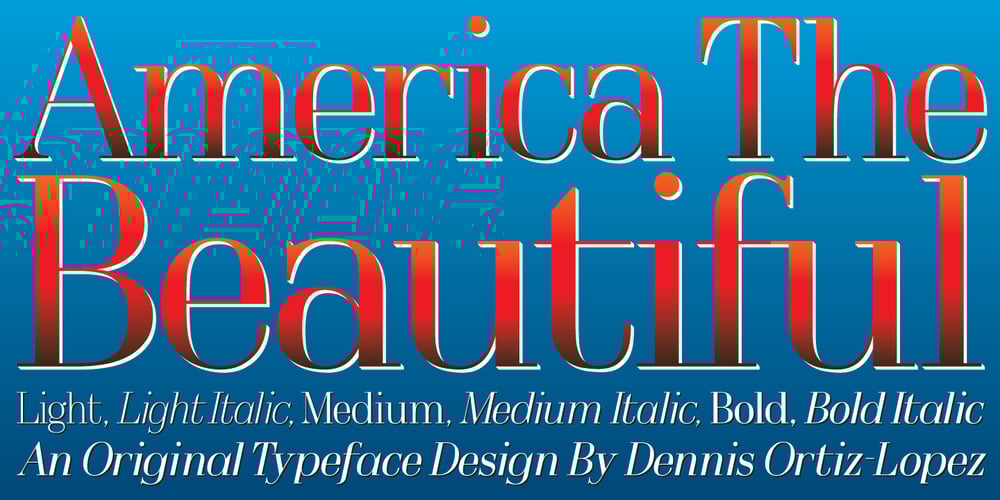
OL America The Beautiful
OL America The Beautiful font
OL America The Beautiful Font Family was designed by Dennis Ortiz-Lopez and published by Dennis Ortiz-Lopez. OL America The Beautiful contains 6 styles and family package options. “Oh Beautiful, for Spacious Skies, for Amber Waves of Grain” This font was designed to honor the Land of My Birth, The United States of America, a Nation that has given me the Freedom to be what I want to be, to Create what I feel fit to create and to Live in Peace. God Bless America!